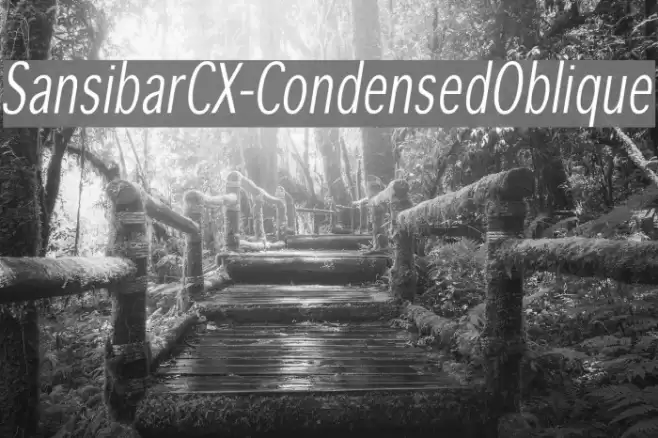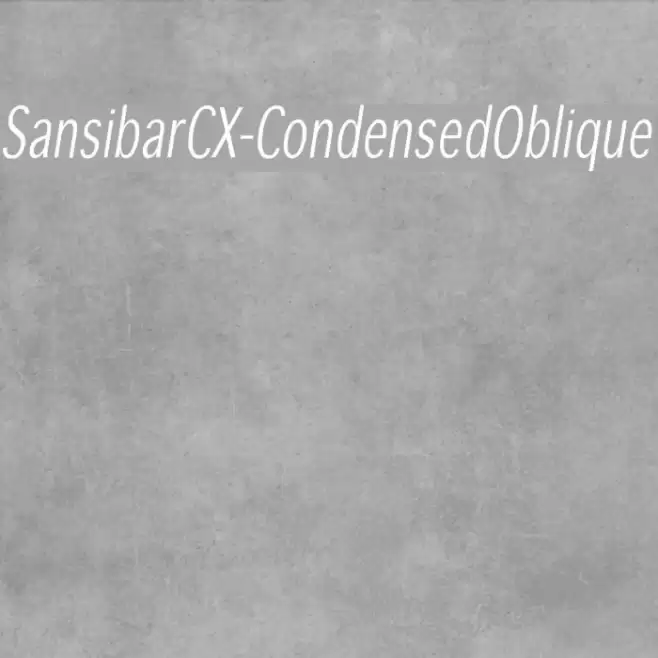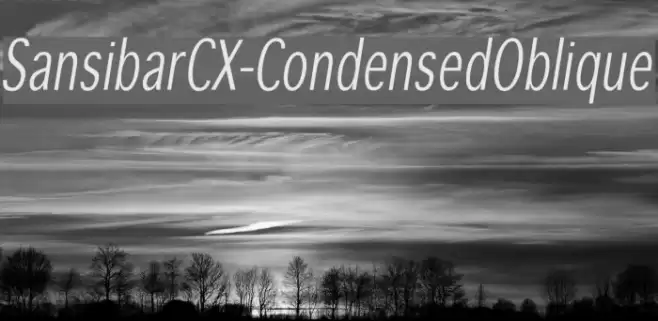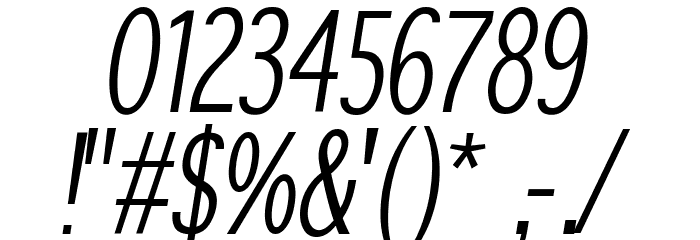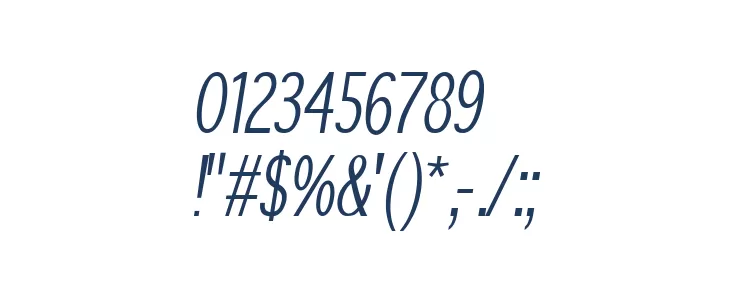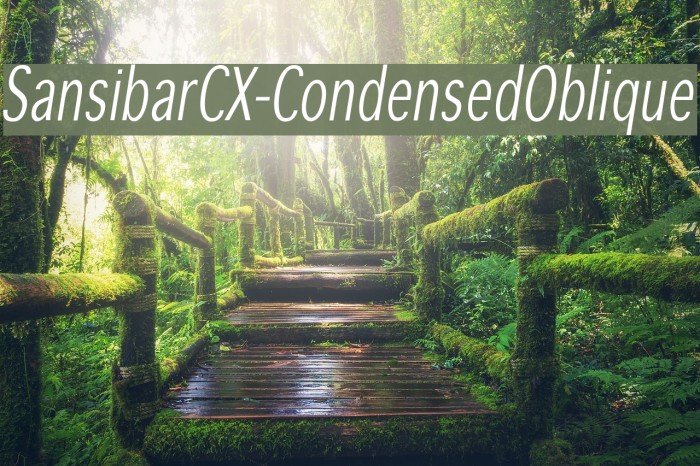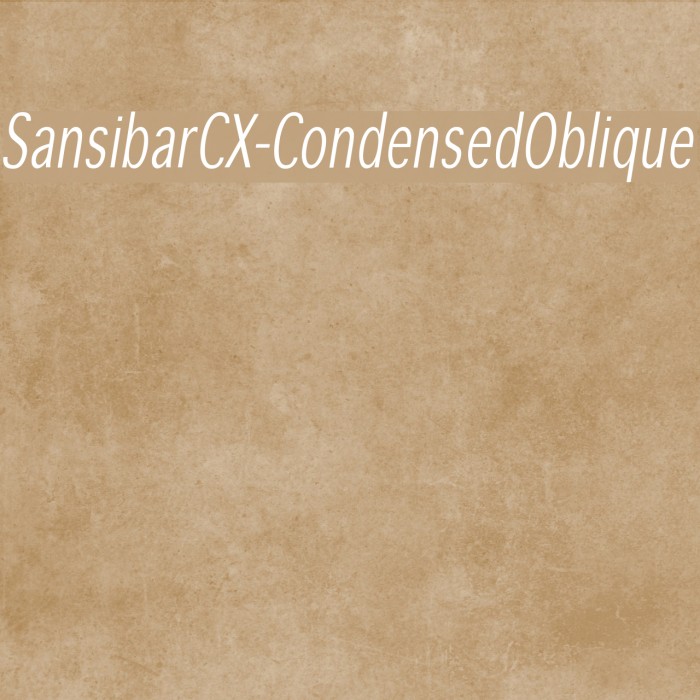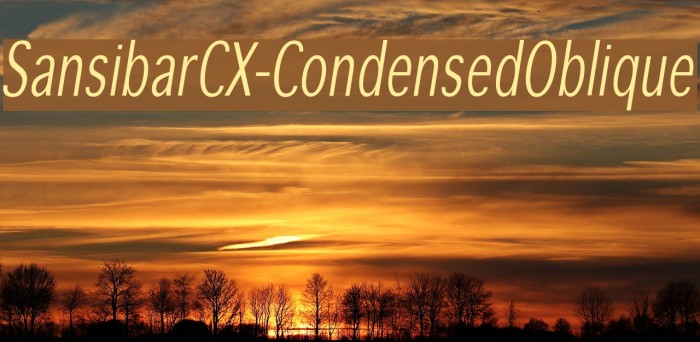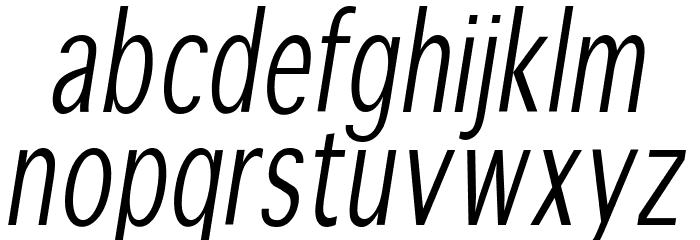
SansibarCX-CondensedOblique Font
SansibarCX-CondensedOblique Description
This font exhibits a sleek and modern aesthetic with its condensed and oblique style. The characters are tall and narrow, giving a sense of elegance and sophistication. The slanted design adds a dynamic and forward-moving feel, making it suitable for contemporary and stylish applications. The uppercase and lowercase letters are well-proportioned, maintaining readability while offering a unique visual appeal. Numbers and special characters are consistent with the overall design, ensuring uniformity across different uses. The font's clean lines and minimalistic approach make it versatile for various design projects.
A modern, condensed oblique font with sleek, elegant lines from Uncategorized fonts.
- Proposed Projects: Ideal for fashion magazines, modern branding, sleek advertising, and dynamic web design.